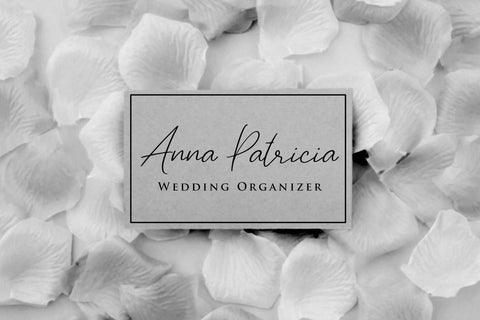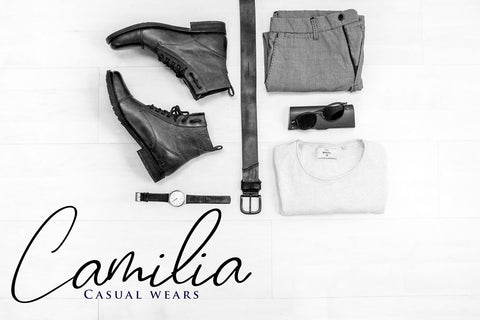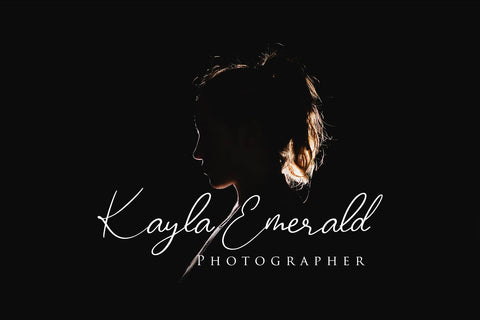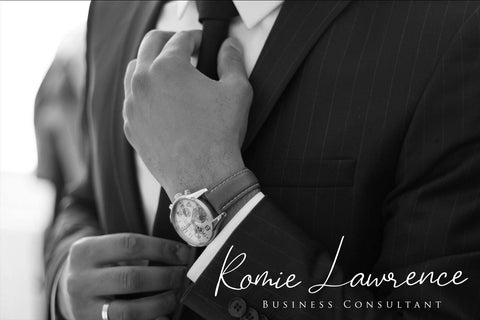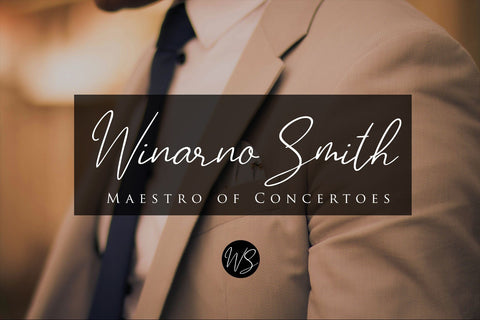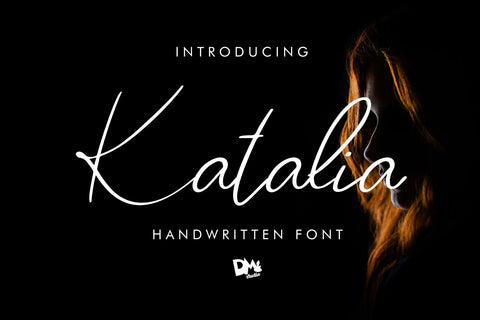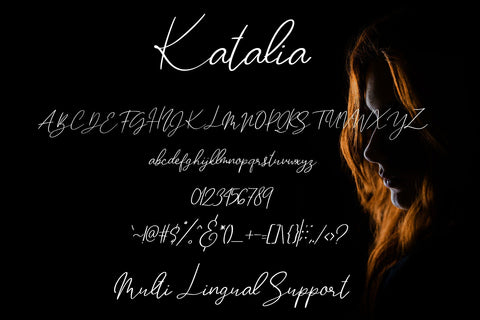
Katalia Handwritten Font
Introducing, Katalia
Handwritten Font.
It's elegant, versatile and classy handwritten font, great choice for
your exclusive design, template, branding, signature, logo, apparels
labels, name card, invitations, advertisements, magazine, etc.
Katalia Highlights :
- Including Uppercase, lowercase, numeral and symbols
- Support Multilingual